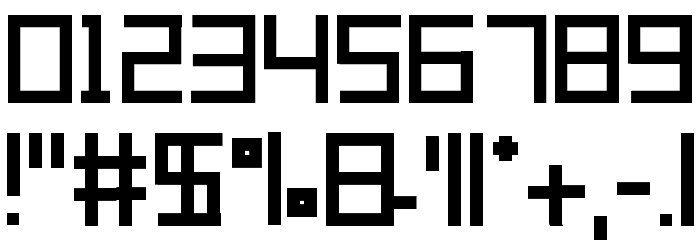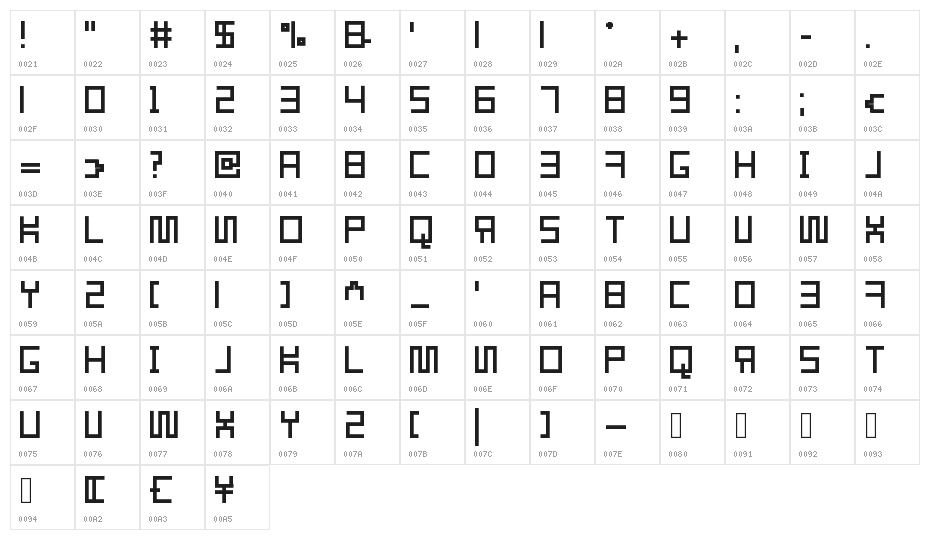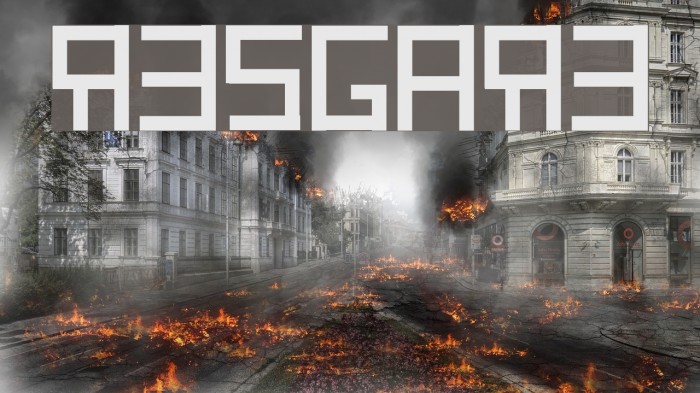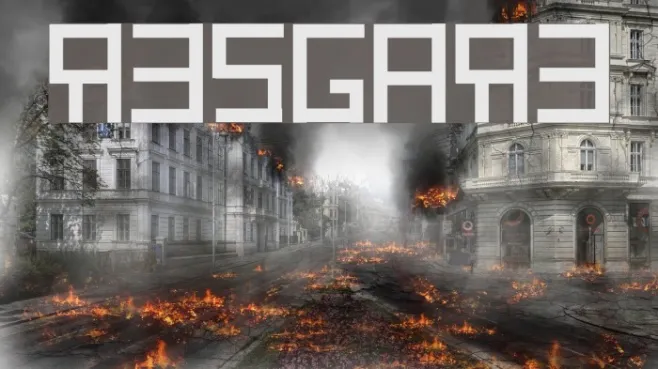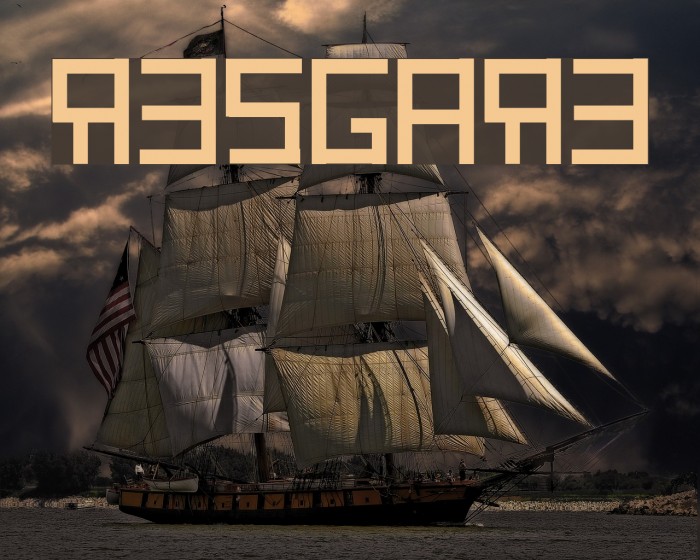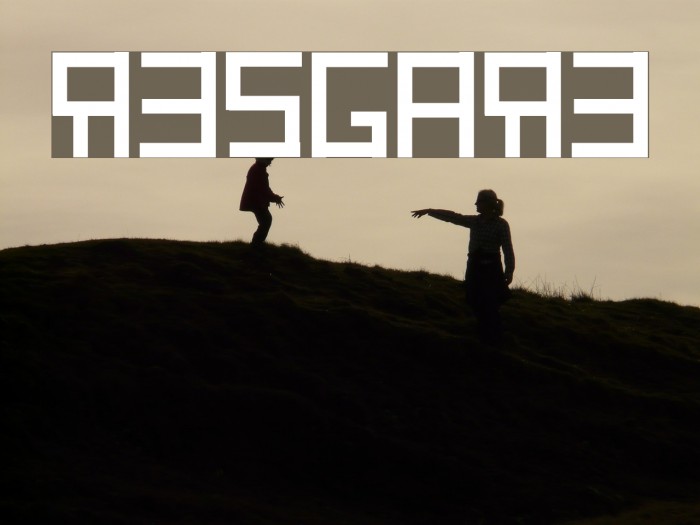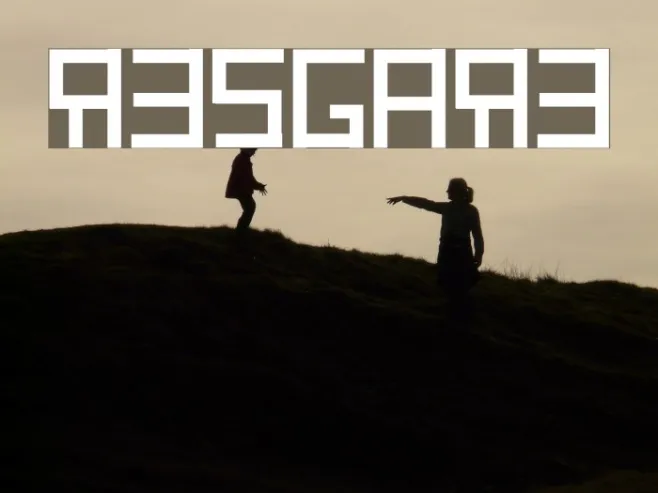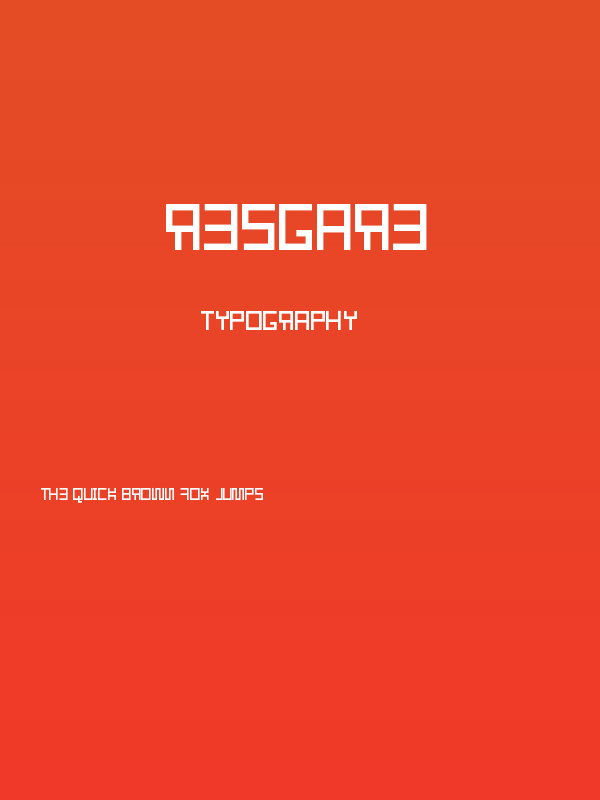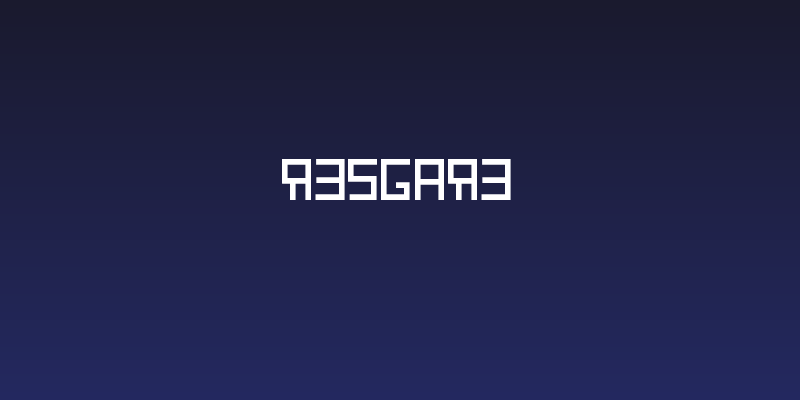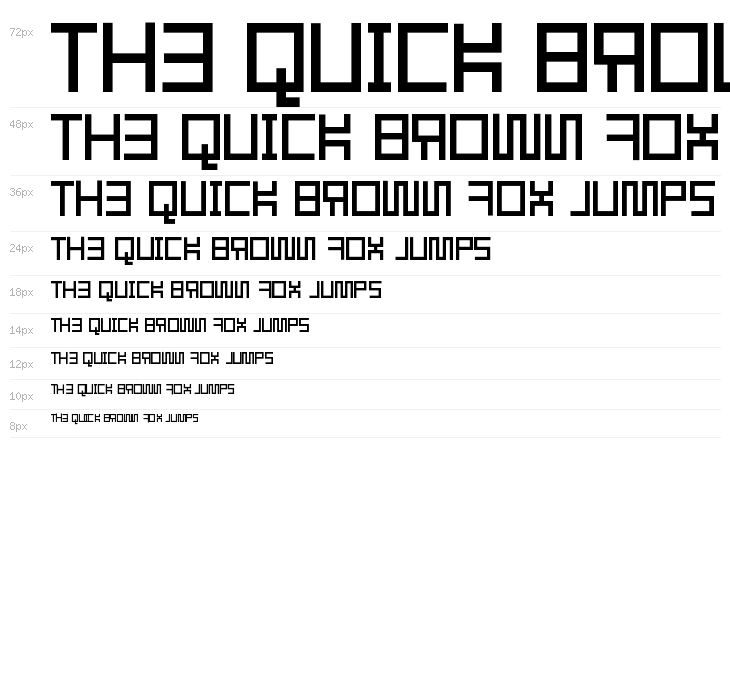
Resgare Font
Resgare Description
This font features a geometric and modular design, characterized by its square and block-like appearance. Each character is constructed with uniform line thickness, creating a cohesive and structured look. The uppercase and lowercase letters share similar dimensions, contributing to a monospaced feel. The numerals and special characters maintain the same geometric style, ensuring consistency across all glyphs. This font's bold and angular nature makes it highly legible and suitable for digital displays or futuristic themes. Its uniformity and simplicity lend it a modern and technical aesthetic, ideal for projects that require a clean and precise typeface.
| Use Case | Headlines, Logos, Digital displays |
| Proposed Projects | Ideal for digital displays, tech branding, video game interfaces, and futuristic design projects. |